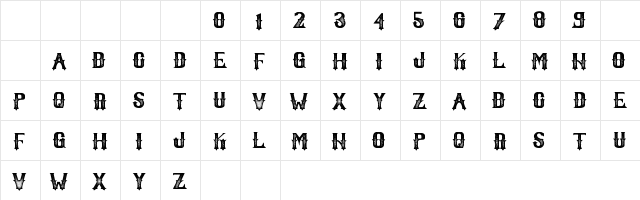
Witham Rough Regular
Design Context for Witham Rough Typeface
Witham Rough trades polish for personality, using distressed and eroded forms to bring grit and attitude to creative work.
Suited to punk-influenced zines, underground music branding, streetwear, and raw, anti-corporate design.
Pro Tip: Pair Witham Rough with intentionally raw or lo-fi design elements. Fighting against it with overly polished surroundings will undermine its personality.